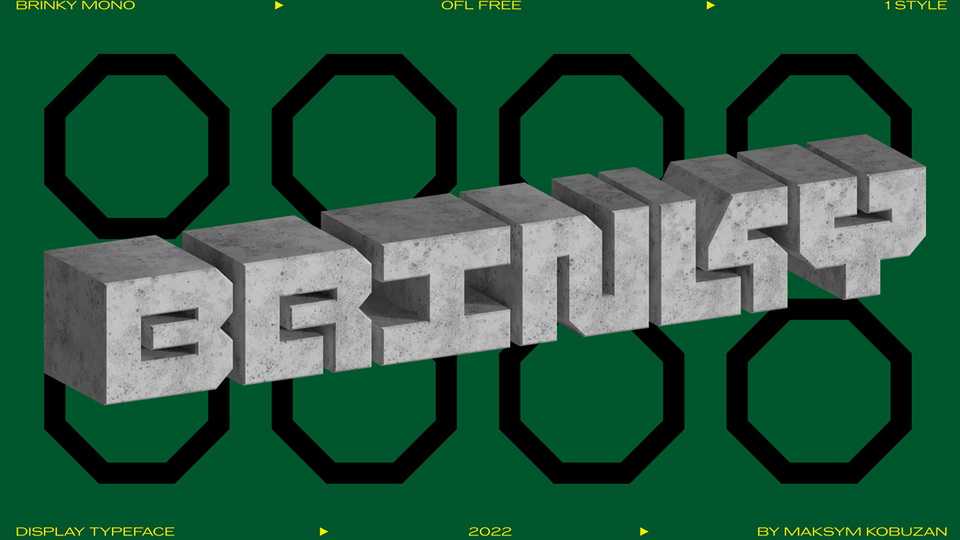
Download Brinky font, a display monospaced typeface inspired by the aesthetics of early 1980s console games. The peculiarity of the graphic of Brinky is that the letters displace the void as much as possible and fill the space around them.